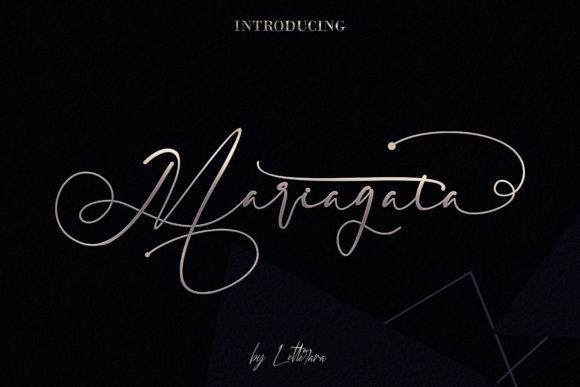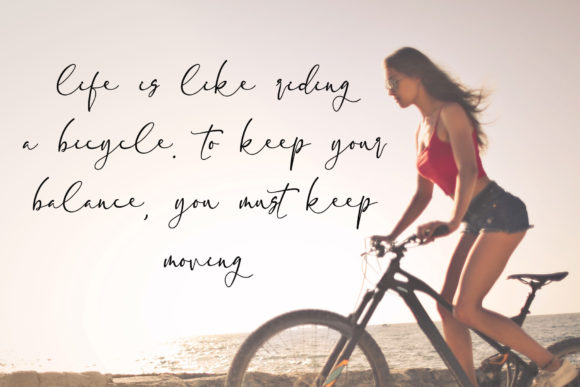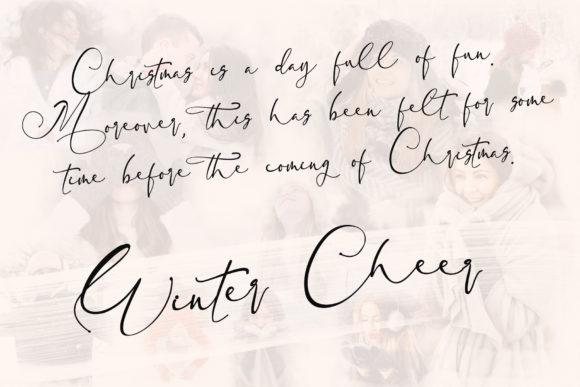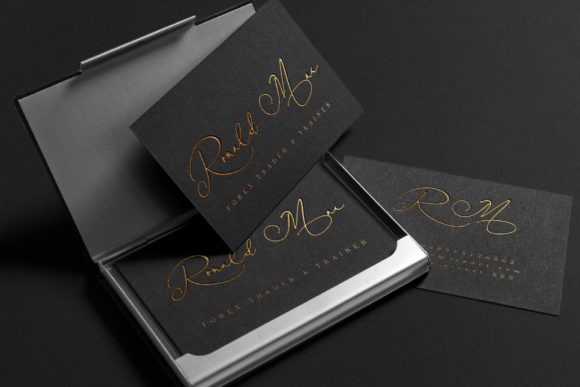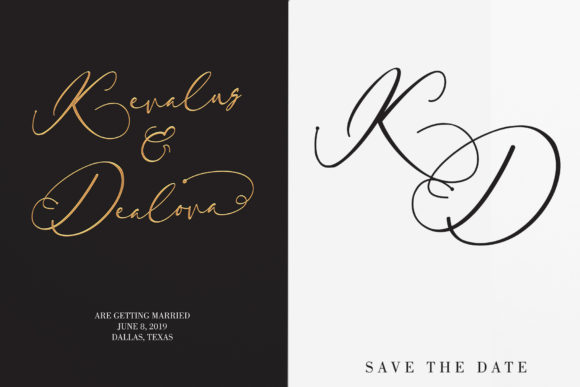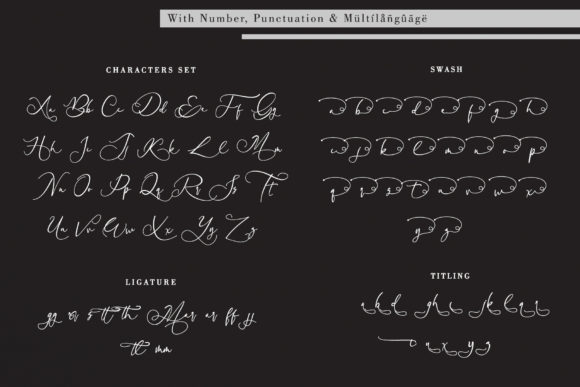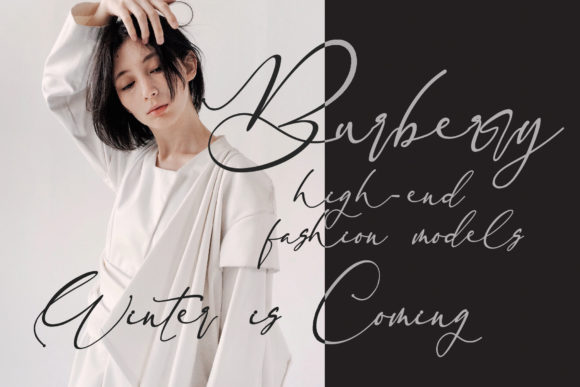
Mariagata Font
About Mariagata Font
Mariagata is a sweet and charming script with unique lettering. Use it to add a personal charm to any design idea.